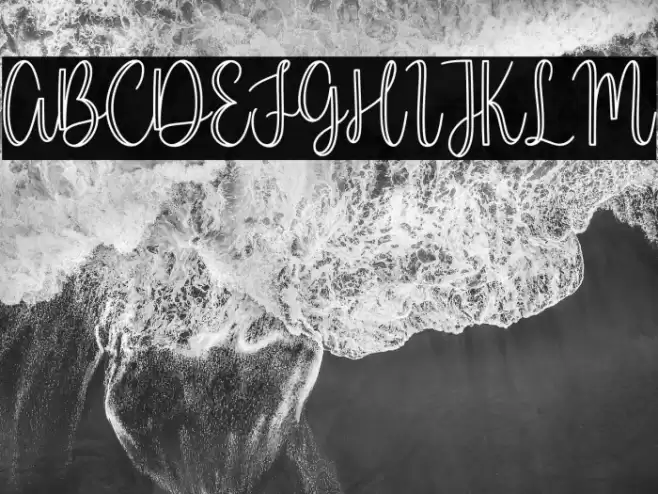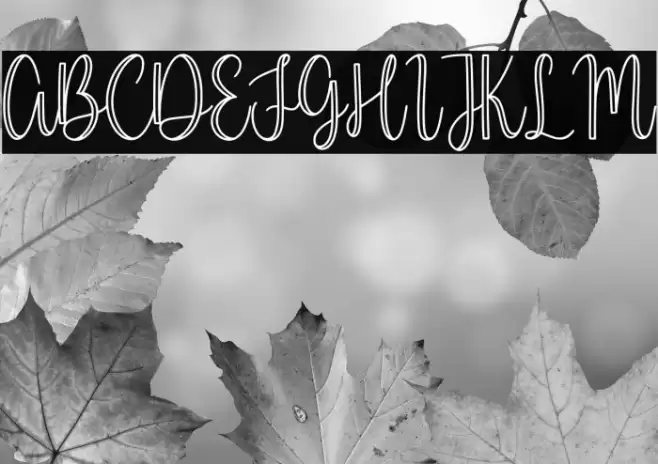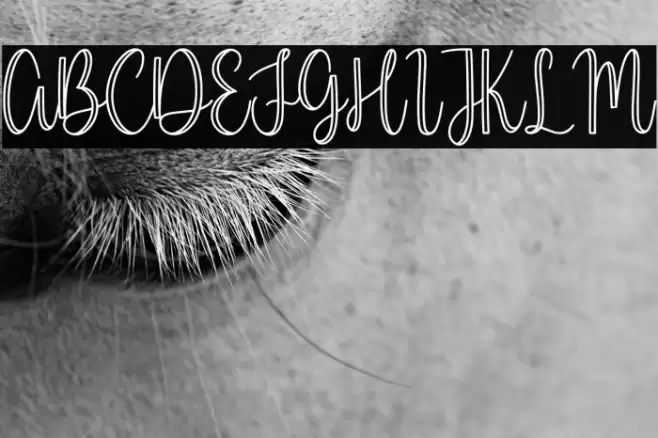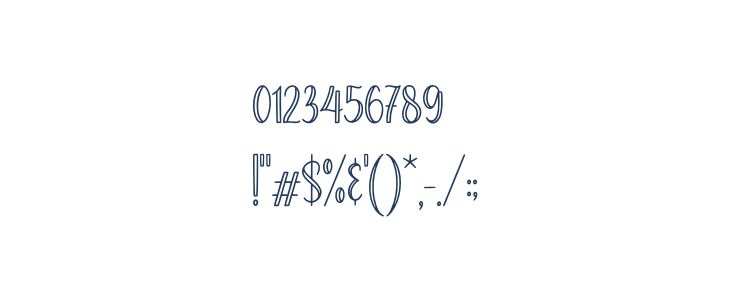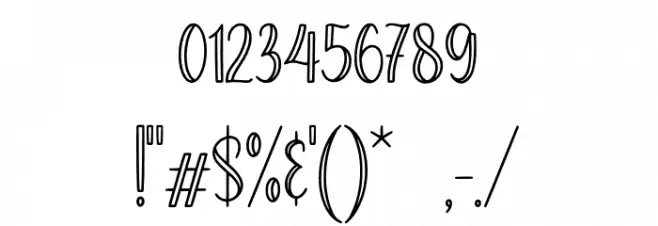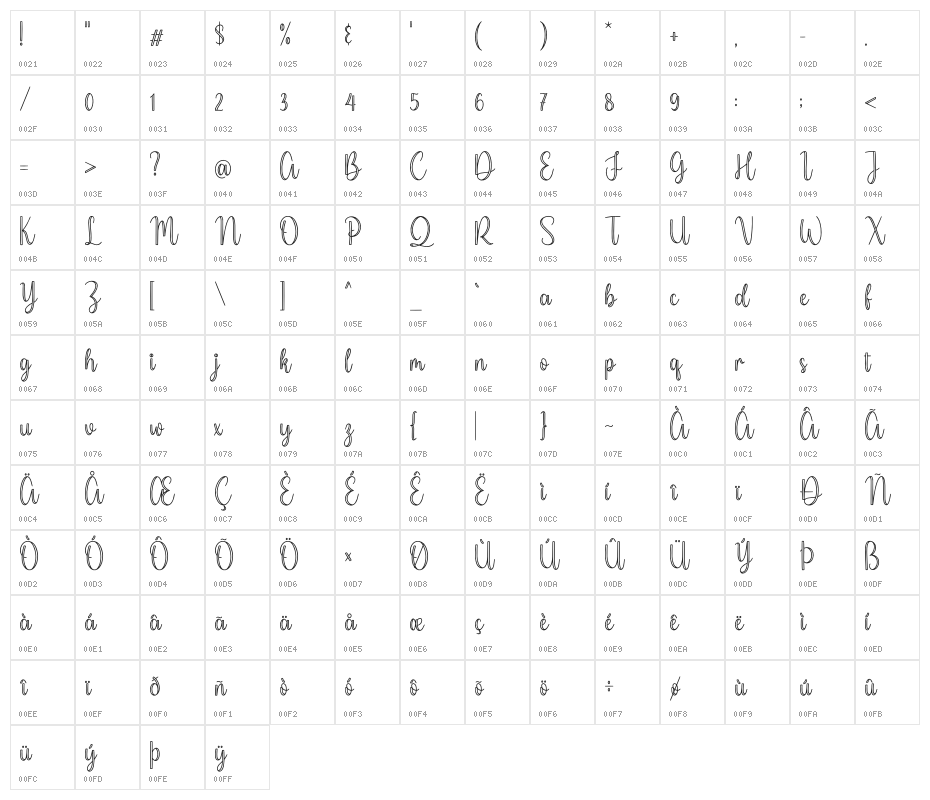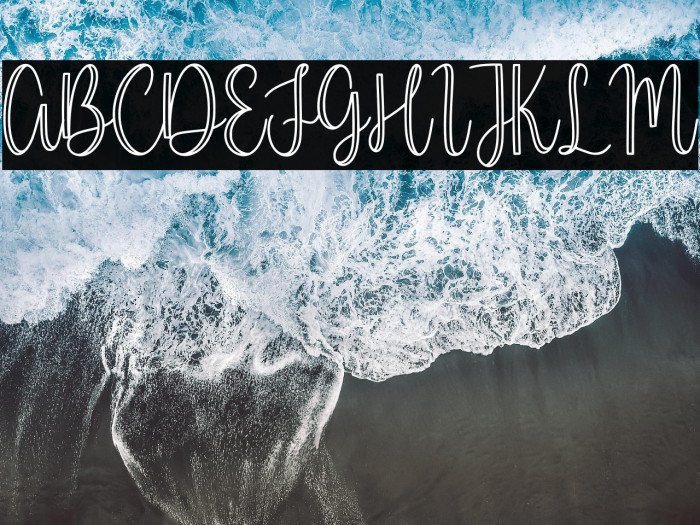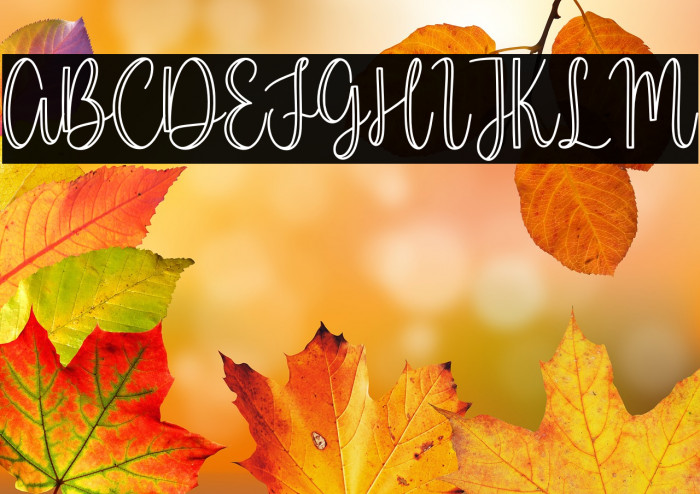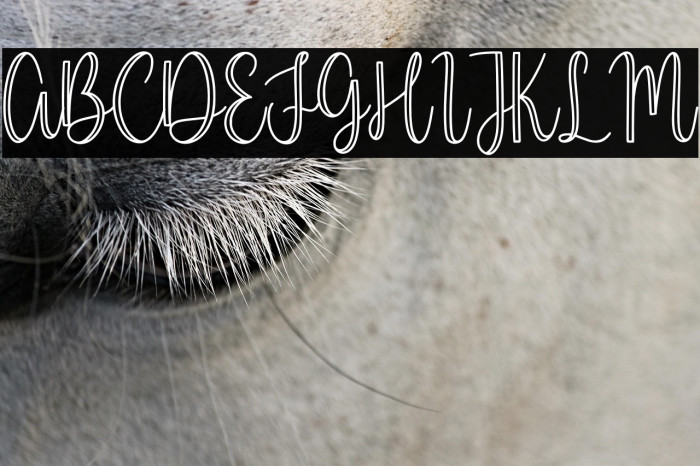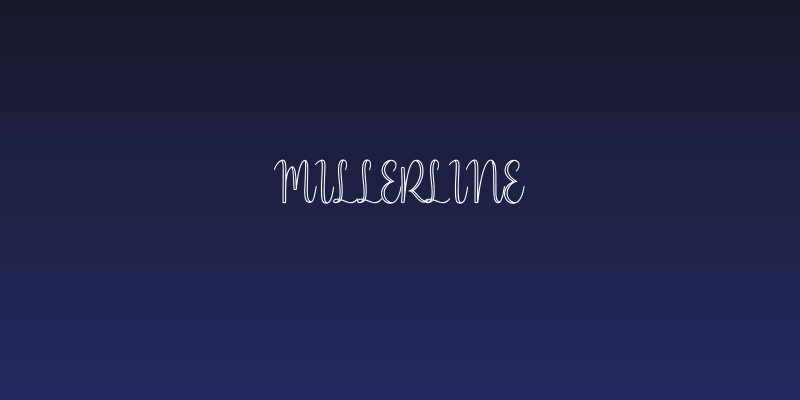
Millerline Font
Millerline Description
This font features an elegant and flowing script style, characterized by its smooth, connected strokes and graceful curves. The uppercase letters are tall and slightly narrow, with distinctive loops and swirls that add a touch of sophistication. The lowercase letters maintain a consistent flow, enhancing readability while retaining the decorative essence. Numbers and special characters are crafted with the same attention to detail, ensuring a cohesive look across all elements. This font exudes a sense of elegance and charm, making it suitable for a variety of creative projects.
An elegant script font with flowing, connected strokes and graceful curves from Uncategorized fonts.
- Proposed Projects: Ideal for wedding invitations, greeting cards, branding, and elegant packaging designs.
- Overall Style: Elegant, Decorative
- Use Case: Logos, Invitations, Decorative text